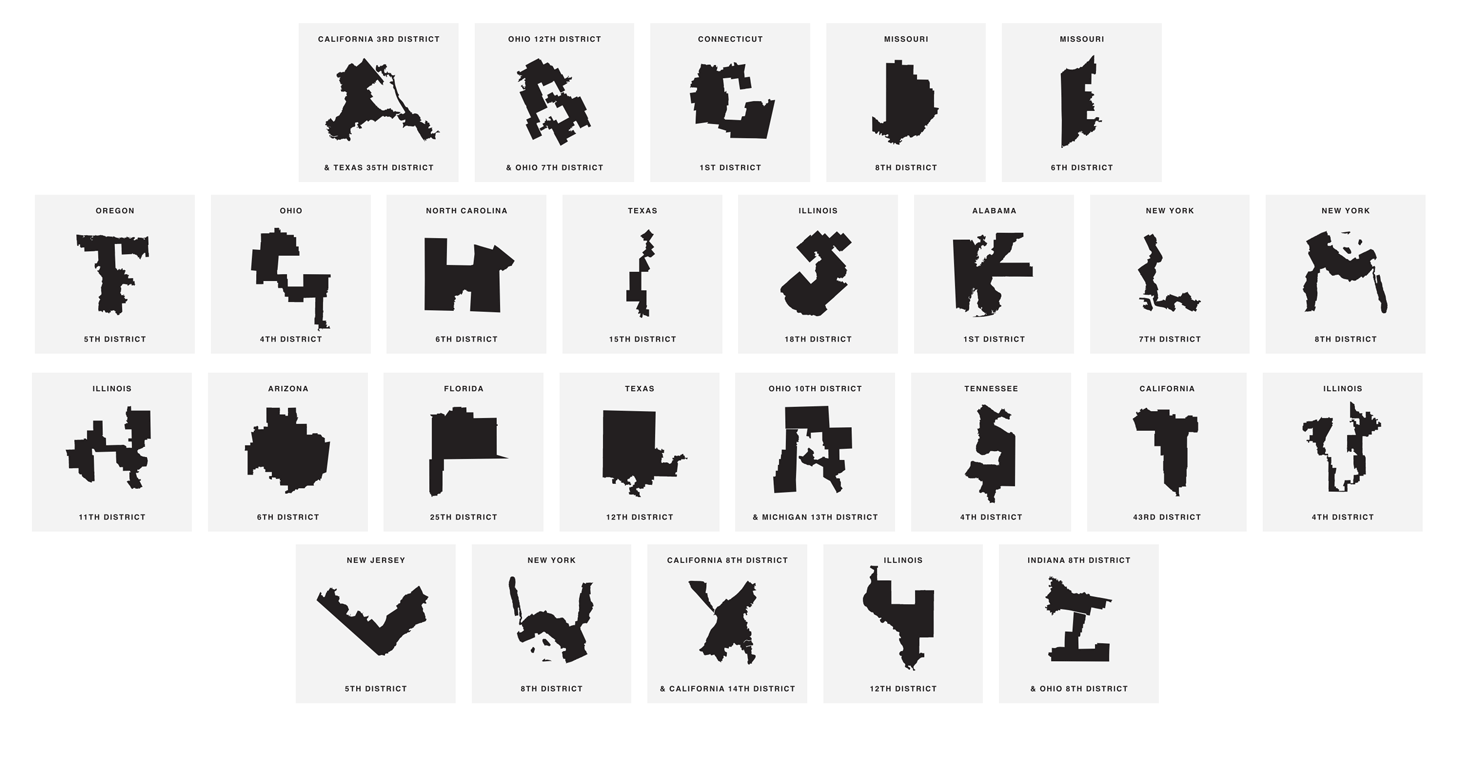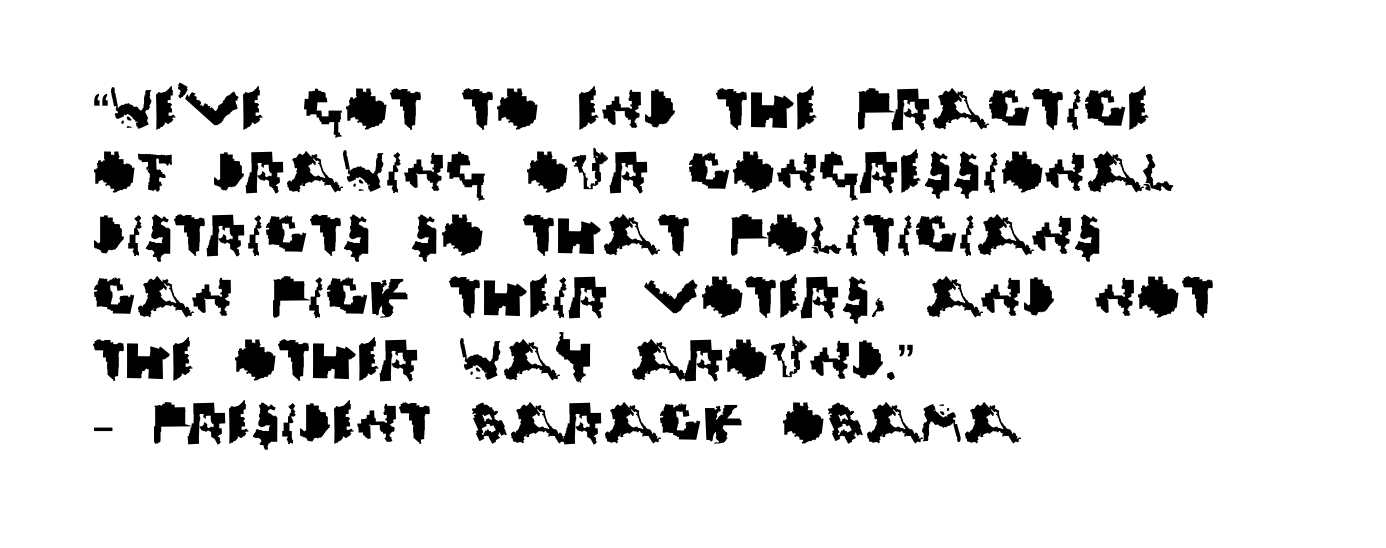
Maps of Gerrymandered Districts Are Turned Into a Typeface
The font "Gerry," created by two Chicago-based digital creatives, renders maps of gerrymandered districts into letters of the alphabet as a commentary on the "eroding of democracy."
Gerrymandering, the practice of drawing the boundaries of electoral districts to unfairly benefit one political party, is one of the most blatant maladies of American politics. To protest this phenomenon, Chicago-based digital creatives Ben Doessel and James Lee released a new font, named “Gerry,” that renders maps of gerrymandered districts into letters of the alphabet.
“To ensure the eroding of democracy isn’t an issue that is lost in the news cycle, our design team from Chicago concocted a creative way to keep our warped voting districts top-of-mind,” the font’s creators said in a statement. “What looks like a ‘G’ is really the 4th Congressional district of Ohio, the ‘E’ is actually Missouri’s 6th district, and so on.”
Doessel and Lee both work at the Chicago offices of the international advertising firm Leo Burnett. The project is independent of the company, but it has received its blessing. Freelancer Kevin McGlone helped them create the website Ugly Gerry where the font is available for free download.
The idea came to Doessel and Lee after they noticed that their gerrymandered Illinois 4th District is shaped like the letter U. “Then after seeing other letters on the map, the idea hit us, let’s create a typeface so our districts can become digital graffiti that voters and politicians can’t ignore,” they said.
In 2018, the Pennsylvania Supreme Court redrew the state’s districts, overturning a Republican gerrymander that skewed voting to the advantage of the party. States like California and Arizona have already terminated gerrymandering by excluding politicians from the redistricting process. In North Carolina, however, a legal battle over gerrymandered districts is still in full force. In 2018, a federal court ruled against the state’s electoral maps after finding that have been drawn in favor of the Republican party. Following an appeal filed in March 2019, the Supreme Court overturned the decision, ruling that partisan gerrymandering is beyond its authority to adjudicate on the matter. The authority to decide on gerrymandering should be in the hands of states or congress, the ruling said. The court’s 5-4 decision was dominated by conservative judges. Voting rights activists have filed another lawsuit in July to challenge North Carolina’s gerrymandering.